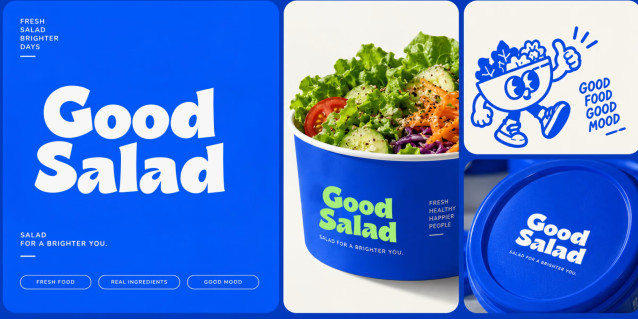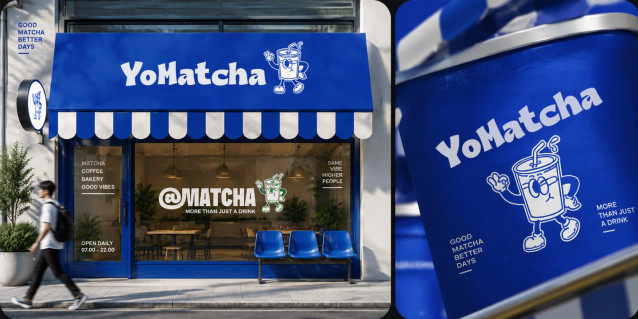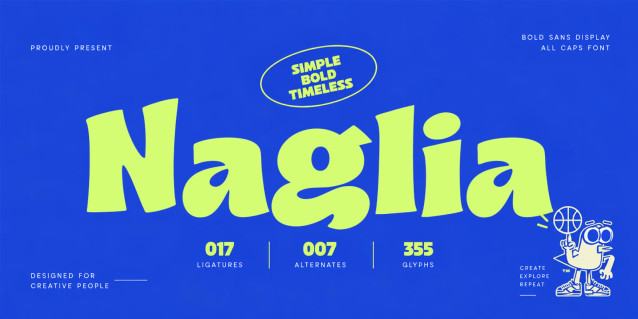
Naglia Font
Naglia is a bold and playful display typeface designed to make your typography instantly stand out. With its chunky letterforms, organic curves, quirky shapes, and energetic personality, Napolia brings a fresh retro-inspired attitude to modern design.
Built for designers who love expressive typography, Napolia works beautifully as a statement font for branding, packaging, posters, apparel, editorial layouts, advertising, and social media. Its distinctive shapes give logos and headlines a strong visual identity, while the playful character makes it especially effective for food & beverage brands, streetwear, music projects, lifestyle brands, and creative campaigns.
Napolia is made to be seen. Use it large, stack the letters, mix different characters, or let the typeface become the main visual element of your composition.